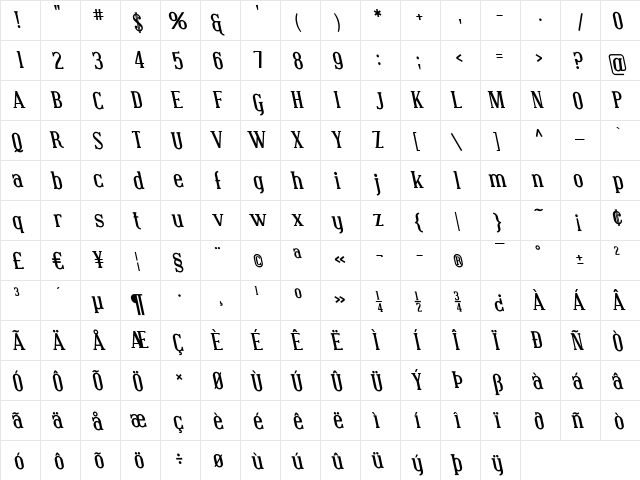
Covington Rev Bold Italic
Design Context for Covington Rev Typeface
Covington Rev is a composed and adaptable typeface that performs quietly and consistently across a wide range of design contexts. Its italic angle brings a sense of urgency and motion to the letterforms. Its bold stroke weight gives it real presence on the page.
Pro Tip: Use Covington Rev for emphasis, pull quotes, and subheadings where its slanted energy can add rhythm to the layout.